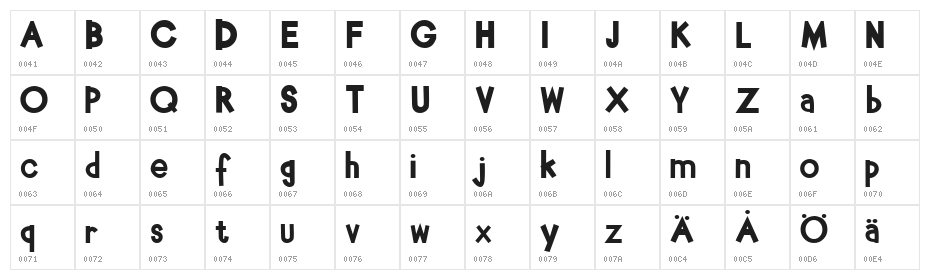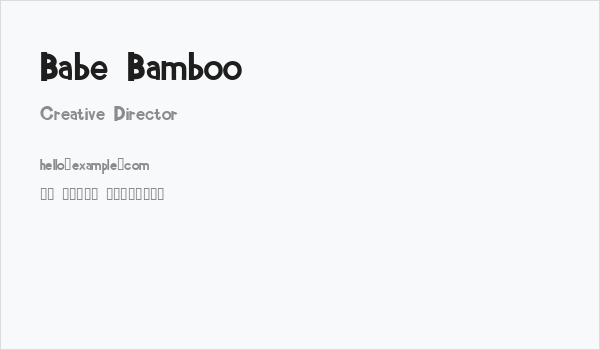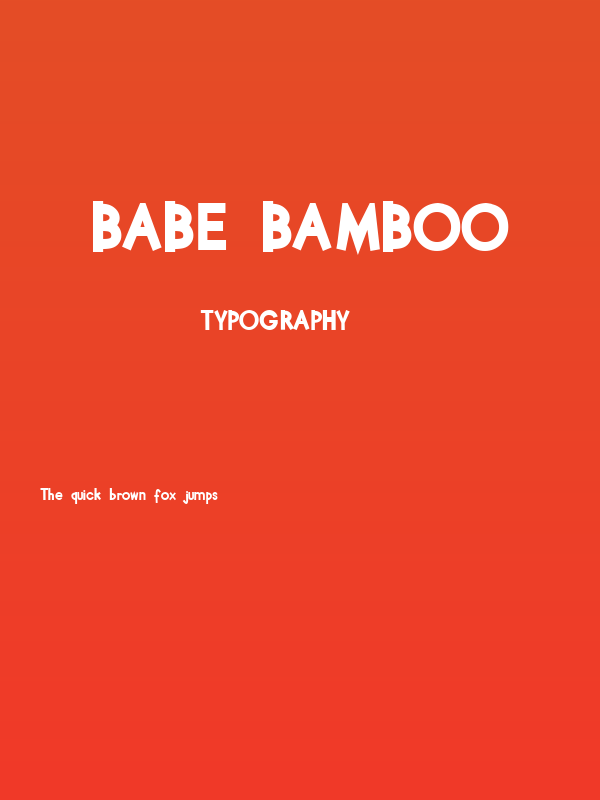
Babe Bamboo Font
Babe Bamboo Description
This font features bold, geometric letterforms with a strong presence and clean lines. The uppercase characters are particularly striking, with a uniform thickness that gives them a solid, impactful look. The lowercase letters maintain a consistent style, offering a balance between readability and aesthetic appeal. The font's design is modern and versatile, making it suitable for a variety of applications. Its boldness and clarity make it ideal for headlines and titles, while its geometric style adds a contemporary touch to any project. The spacing between characters is tight, enhancing the font's cohesive appearance. Overall, this font is a great choice for projects that require a bold and modern typeface.